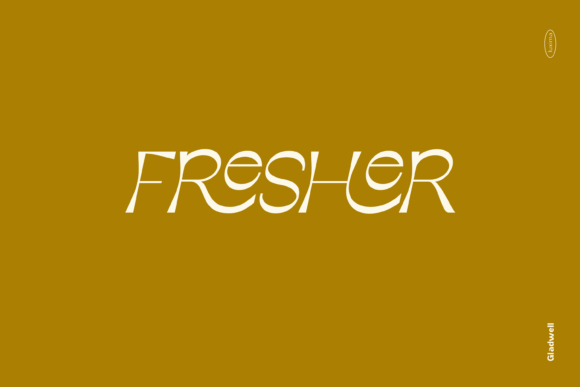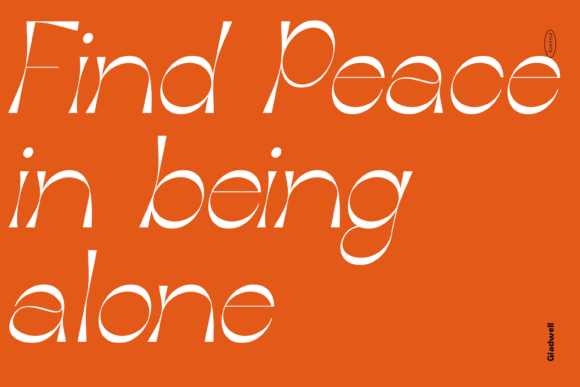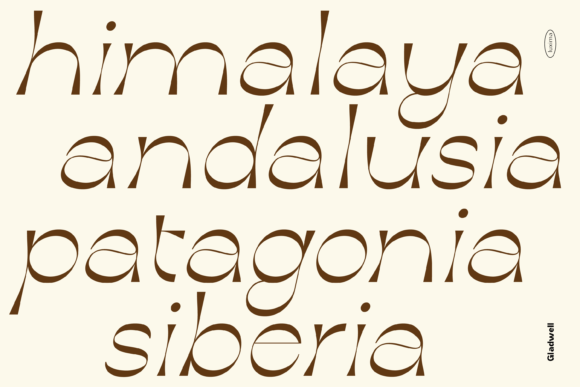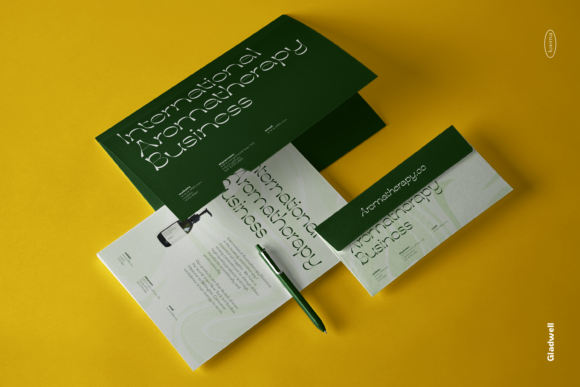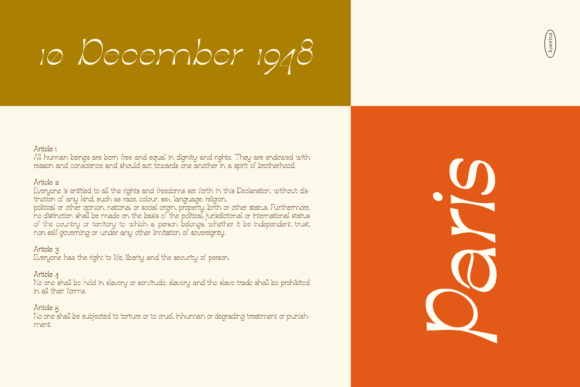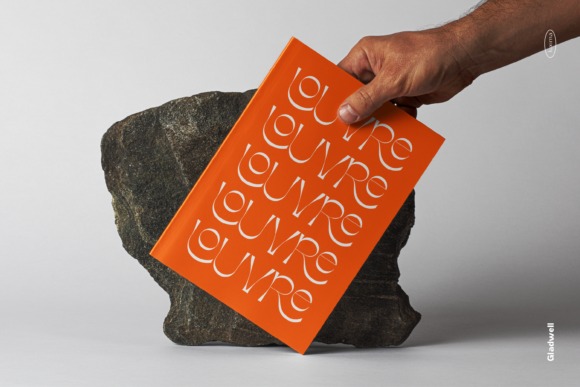
Introducing Gladwell Font: The Unique and Authentic Display Font
Are you tired of using the same old fonts for your creative projects? Look no further than the Gladwell Font, a cool display font that is inspired by the unique trunk of a palm tree. This typeface is designed to give your creations a distinctive and authentic impression, making it perfect for independent and challenging projects.
The Inspiration Behind Gladwell Font
The Gladwell Font is inspired by the natural beauty of a palm tree trunk. The font’s unique design is characterized by its bold and curvaceous lines, which evoke the feeling of a tropical paradise. The font’s creator aimed to capture the essence of the palm tree’s rugged yet elegant appearance, and transform it into a typeface that would add a touch of sophistication to any design project.
Key Features of Gladwell Font
So, what makes the Gladwell Font stand out from other display fonts? Here are some of its key features:
- Unique Design: The Gladwell Font boasts a one-of-a-kind design that is inspired by the palm tree trunk. Its bold and curvaceous lines make it perfect for adding a touch of elegance to your designs.
- PUA Encoded: The Gladwell Font is PUA (Private Use Area) encoded, which means that you can access all of the glyphs and swashes with ease. This makes it easy to use and customize the font to suit your design needs.
- Distinctive and Authentic: The Gladwell Font gives your creations a distinctive and authentic impression, making it perfect for independent and challenging projects.
Use Cases for Gladwell Font
The Gladwell Font is a versatile typeface that can be used for a variety of design projects. Here are some use cases where the Gladwell Font would be perfect:
- Logos and Branding: The Gladwell Font’s unique design makes it perfect for creating logos and branding materials that require a distinctive and authentic touch.
- Posters and Flyers: The font’s bold and curvaceous lines make it perfect for creating eye-catching posters and flyers that require a touch of elegance.
- Packaging Design: The Gladwell Font can be used for packaging design projects that require a unique and eye-catching typeface.
- Web Design: The font can be used for web design projects that require a bold and elegant typeface.
Tips for Using Gladwell Font
Here are some tips for using the Gladwell Font effectively:
- Use it as a Display Font: The Gladwell Font is designed to be used as a display font, so use it sparingly to add emphasis to your designs.
- Experiment with Different Sizes: The font looks great in large sizes, but it can also be used in smaller sizes to add a touch of elegance to your designs.
- Pair it with Other Fonts: The Gladwell Font can be paired with other fonts to create a unique and eye-catching typography.
The Gladwell Font is a unique and authentic display font that is perfect for designers and crafters who want to add a touch of elegance to their creations. Its bold and curvaceous lines, inspired by the palm tree trunk, make it perfect for independent and challenging projects. With its PUA encoding, accessing glyphs and swashes is easy, making it a versatile typeface for a variety of design projects.
In conclusion, the Gladwell Font is a must-have for designers and crafters who want to add a touch of uniqueness and elegance to their creations. Its inspiring design, versatility, and ease of use make it a great addition to any design project.